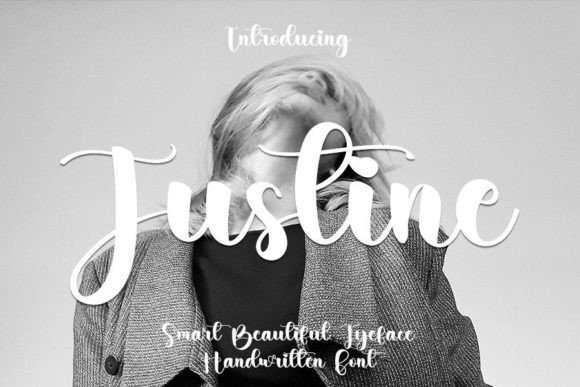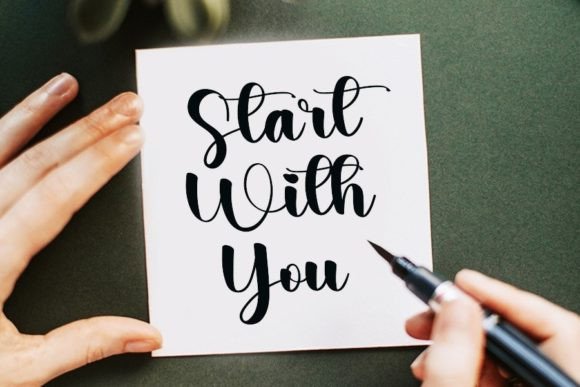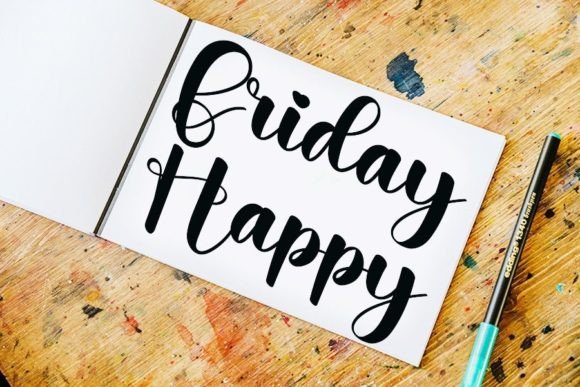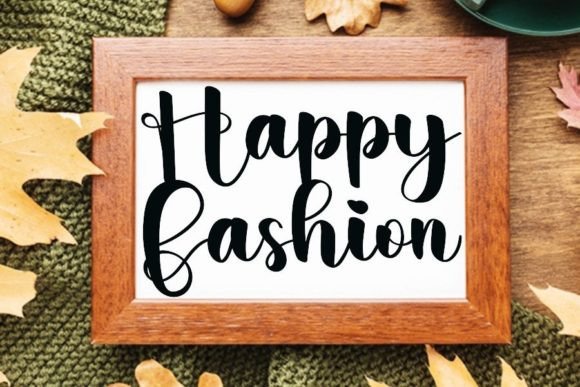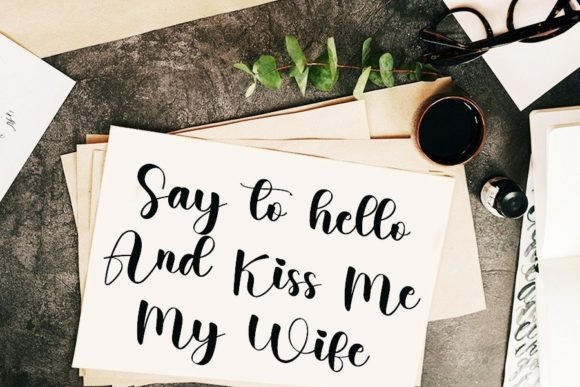
Justine Font
About Justine Font
Justine is a remarkable handwritten font that embodies elegance and sophistication, making it the ideal choice for a wide array of creative endeavors. Its delicate and well-rounded design sets it apart, adding a touch of authenticity and charm to any project it graces. Whether you’re designing wedding invitations, crafting heartfelt birthday cards, establishing a personal brand identity, creating elegant logos, or pursuing any other creative venture, Justine effortlessly elevates your work to a higher level.
When it comes to wedding invitations, Justine captures the essence of romance and celebration. Its graceful strokes and intricate details infuse the invitations with a sense of intimacy and warmth, setting the perfect tone for a memorable event. The font’s handwritten style adds a personal touch, making the recipients feel cherished and valued.
In the realm of birthday cards, Justine brings a sense of refinement and thoughtfulness. Whether you’re celebrating a milestone birthday or simply expressing your best wishes, the font’s timeless appeal enhances the overall aesthetic of your greeting. Each stroke conveys care and sincerity, making your message truly heartfelt and unforgettable.
For personal branding, Justine is a game-changer. Your brand identity is a reflection of your personality and values. Justine’s handwritten elegance communicates approachability and creativity, making it an excellent choice for entrepreneurs, freelancers, and small business owners. It establishes a unique and authentic brand presence, ensuring that your audience connects with your brand on a deeper level.
In the realm of elegant logos, Justine shines brightly. Its fluid and graceful letters create a logo that is both visually striking and memorable. A well-designed logo is the cornerstone of brand recognition, and Justine ensures that your logo stands out from the crowd. Its versatility allows it to adapt seamlessly to various industries, adding a touch of class and sophistication to your visual identity.
Beyond these specific applications, Justine offers limitless creative possibilities. Its timeless design makes it suitable for various craft projects, DIY endeavors, inspirational quotes, social media graphics, and more. Whether you’re creating custom stationery, wall art, or digital designs, Justine’s authentic charm breathes life into your creations, making them truly exceptional.
In conclusion, Justine is not just a font; it’s a source of inspiration and creativity. Its delicate and well-rounded handwritten style transforms ordinary projects into extraordinary works of art. Embrace Justine and let your imagination run wild, as it adds an authentic and heartfelt touch to everything you create. With Justine by your side, your creative ventures are bound to leave a lasting impression, captivating hearts and minds with its timeless beauty.